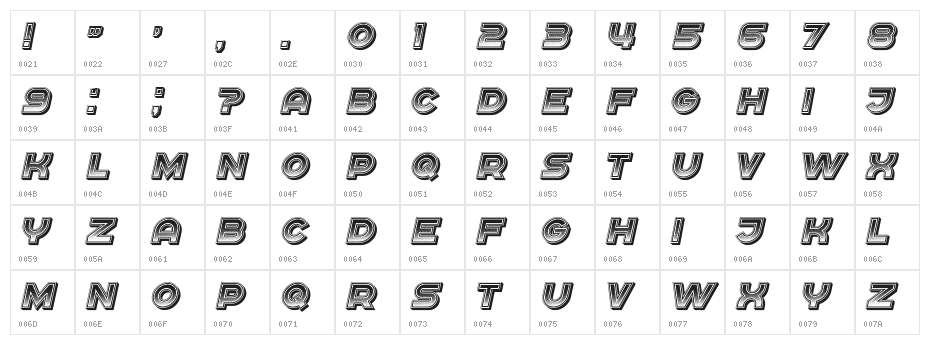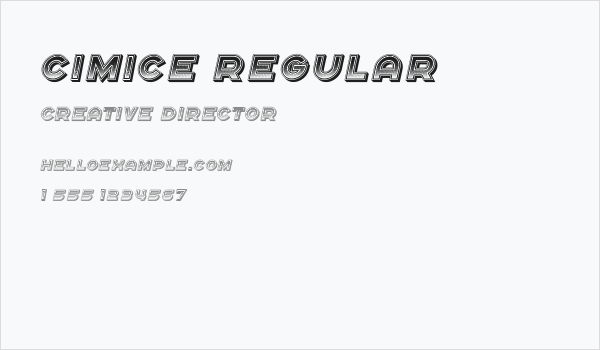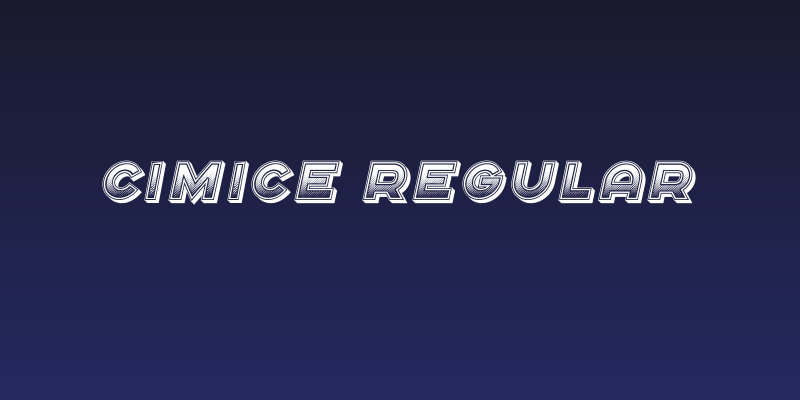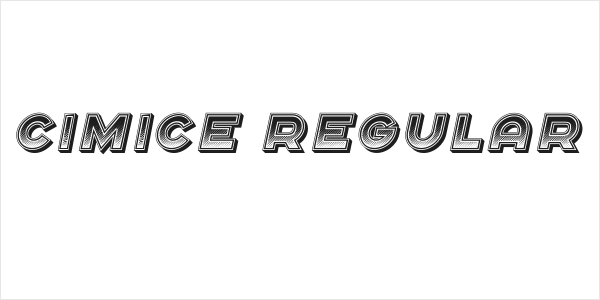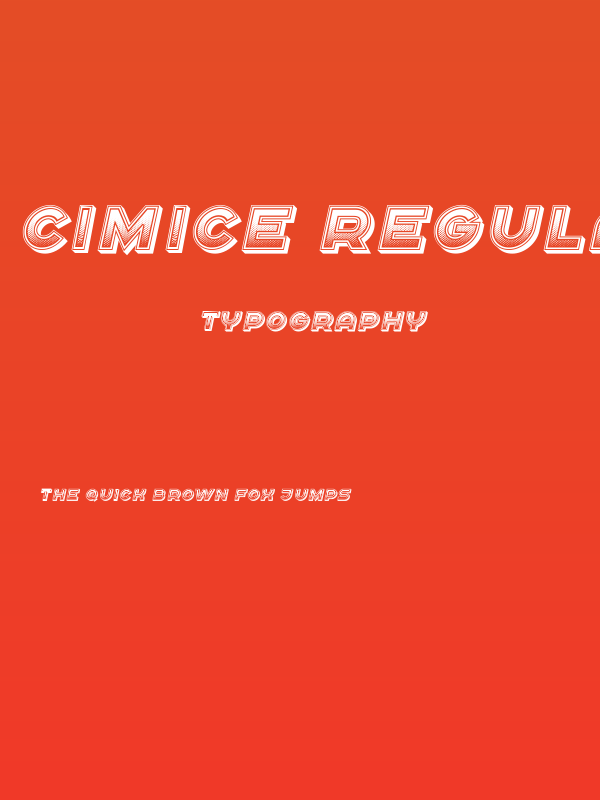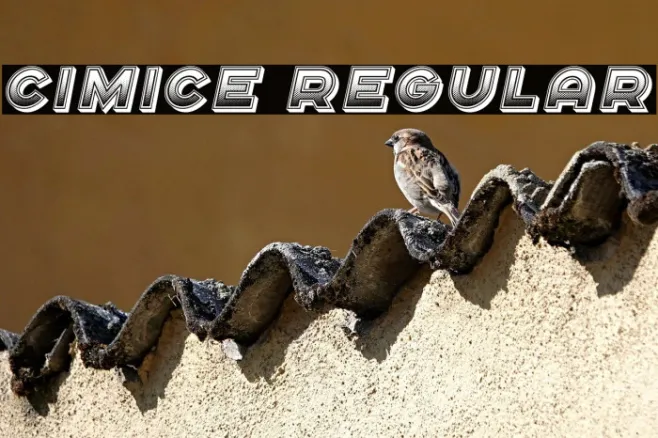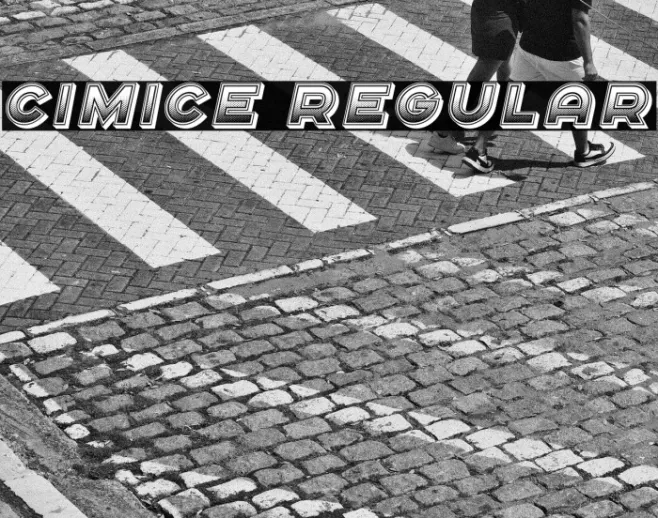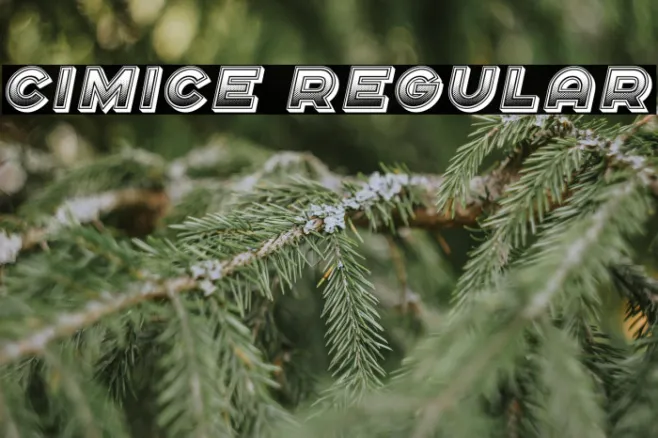
Cimice Regular Font
Cimice Regular Description
This font features a bold and dynamic design with a three-dimensional effect, achieved through the use of layered lines and shadows. The characters have a strong presence, with thick strokes and a geometric structure that creates a sense of depth and movement. The uppercase letters are particularly striking, with their bold outlines and intricate internal patterns. The numerals and special characters maintain the same stylistic approach, ensuring consistency across all elements. This font is ideal for projects that require a bold and eye-catching display, such as posters, headlines, and branding materials.
| Proposed Projects | Ideal for posters, headlines, branding, and any project needing a bold, eye-catching display. |